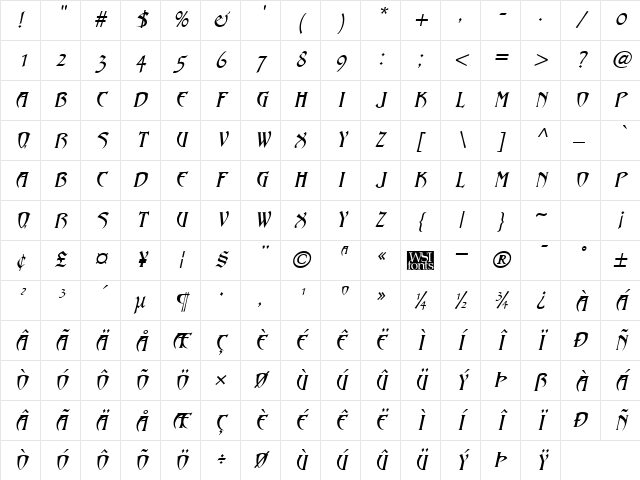
Hadjii is a composed and adaptable typeface that performs quietly and consistently across a wide range of design contexts. The slanted form adds forward momentum and visual energy.
Pro Tip: Use Hadjii for emphasis, pull quotes, and subheadings where its slanted energy can add rhythm to the layout.